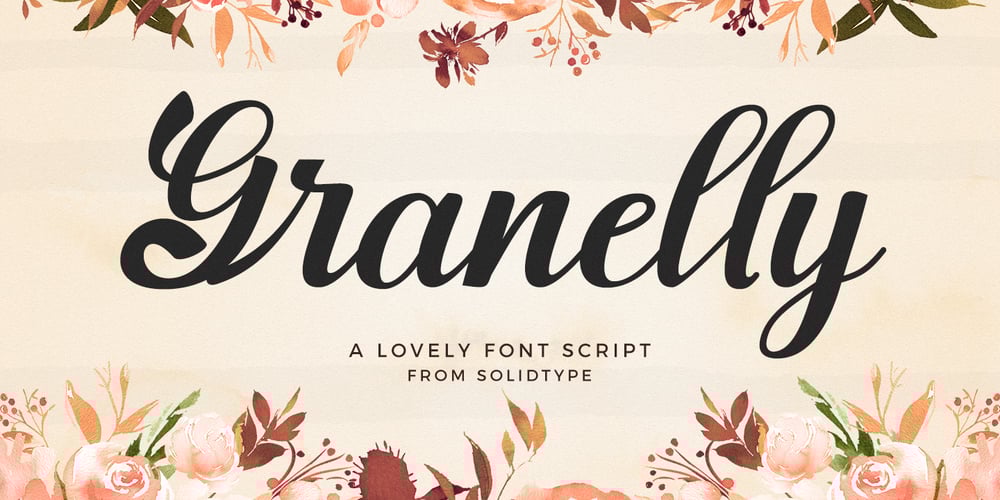
Granelly Script Font Family was designed by Riski Firmana and published by Solidtype. Granelly Script contains 1 styles and family package options. Granelly is a modern, feminine handwritten font, with a variety of beginning and ending swashes, I hope you’re drawn to a beautiful and aesthetic font to perfect your extraordinary project.This font can be used easily and simply because there are many features in it which contain a complete set of uppercase and lowercase letters, large variety of punctuation marks, numbers, and multilingual support. The font also contains several binders and alternative styles of Stylistic Sets for those of you who have OpenType capable software (Photoshop / Illustrator / InDesign).Granelly script is suitable for today’s growing market designs, this font has a trendy, natural and soft style, with this font you can use.opportunities in every moment of one of the extraordinary ways to highlight your best party celebration, because this font will be a support for purposes such as wedding invitations, parties, graduations, birthdays, meetings, etc.